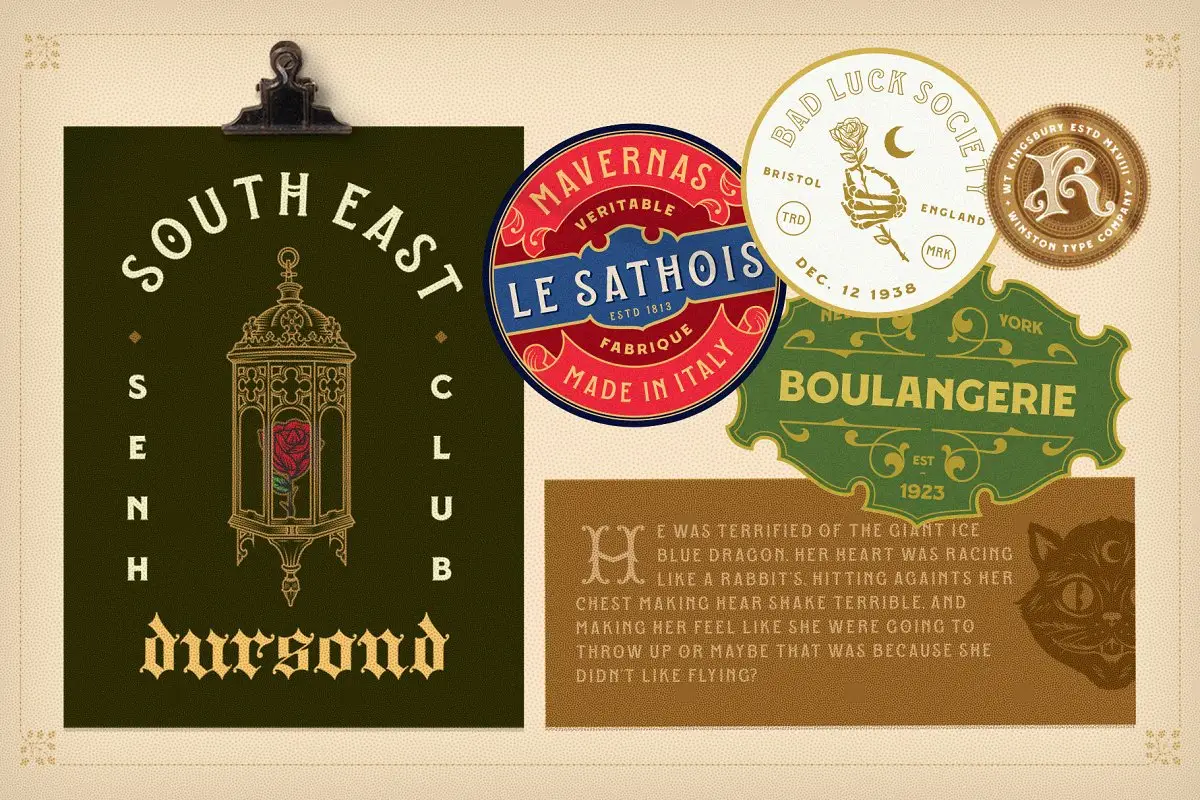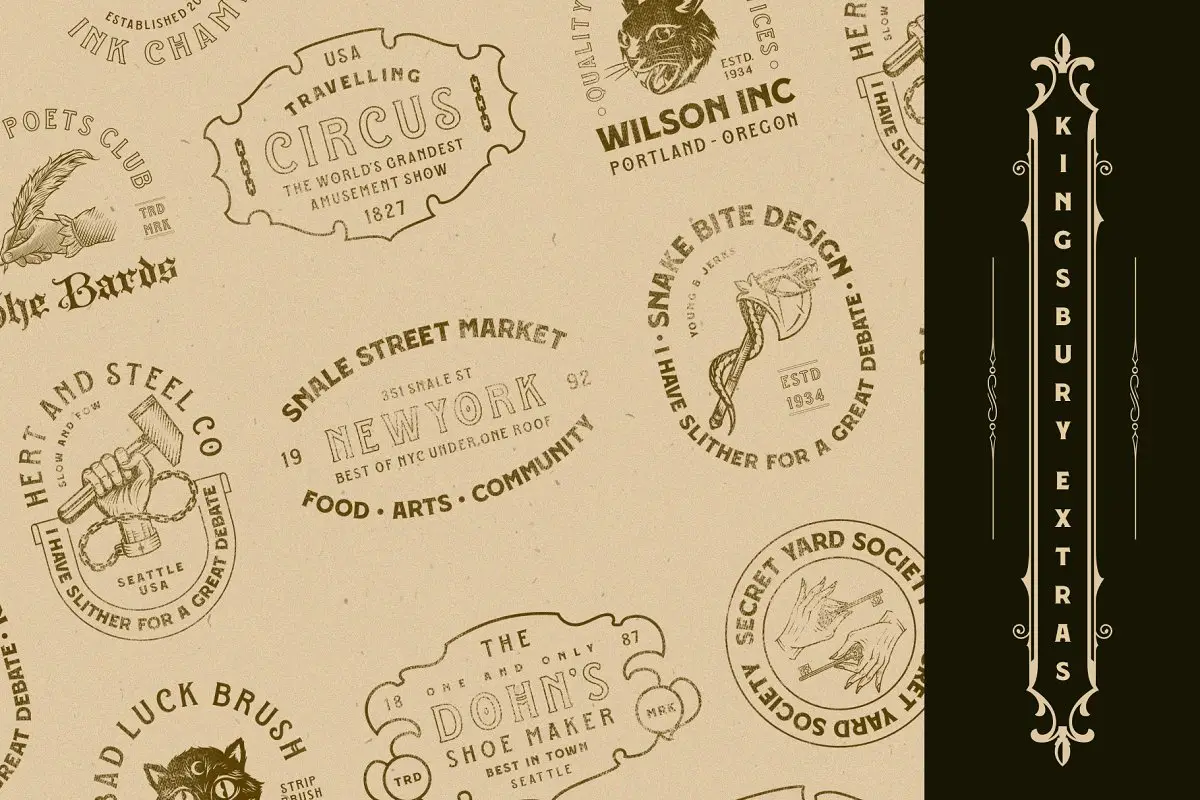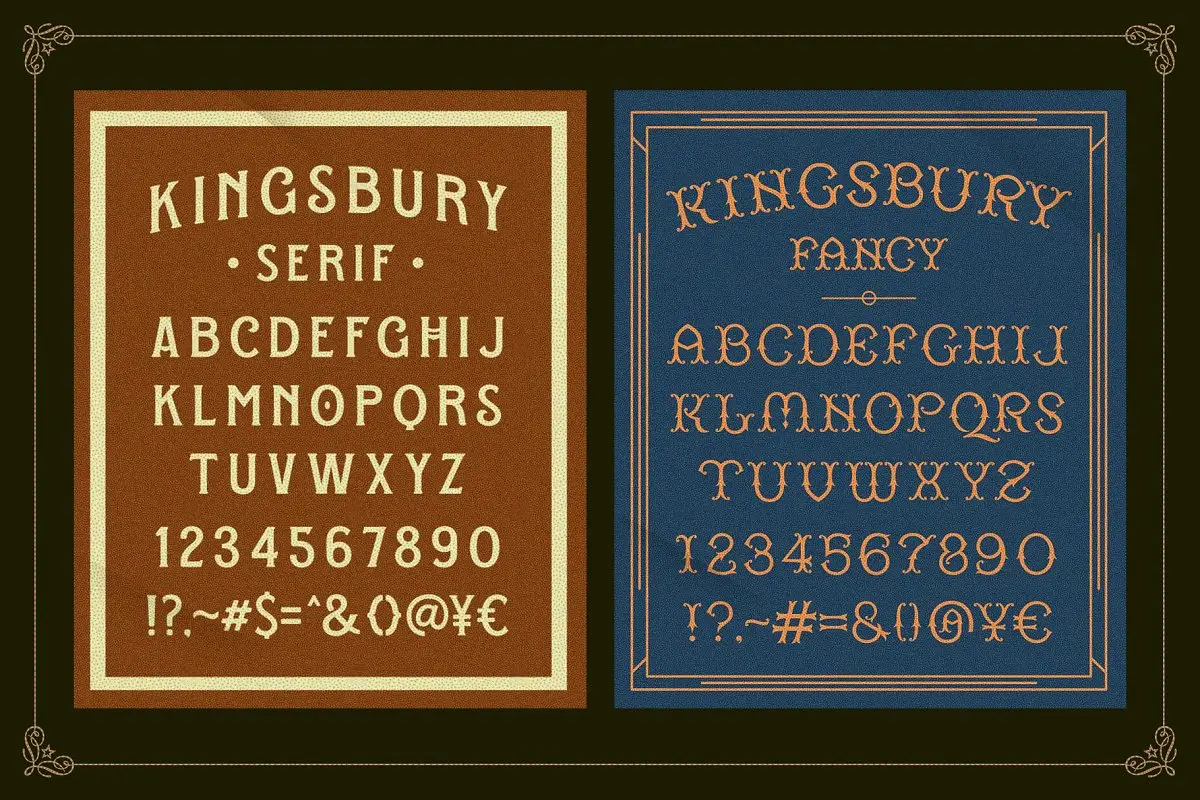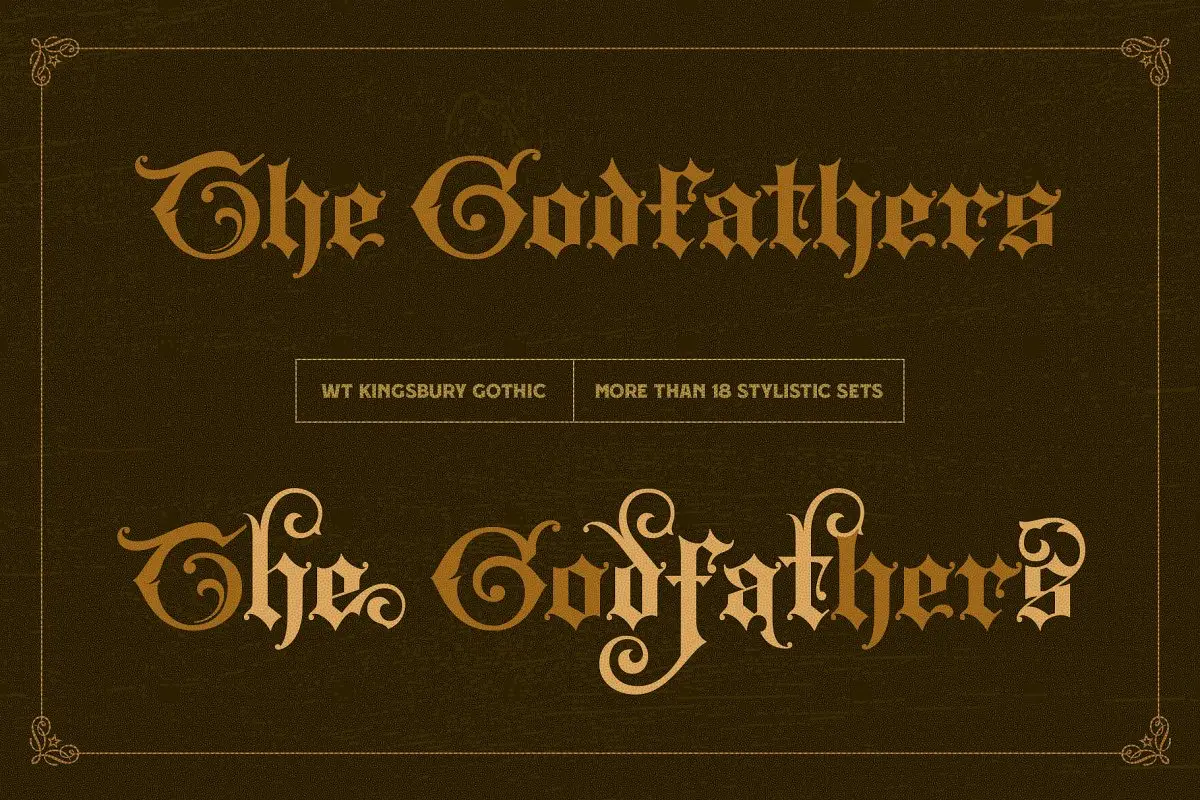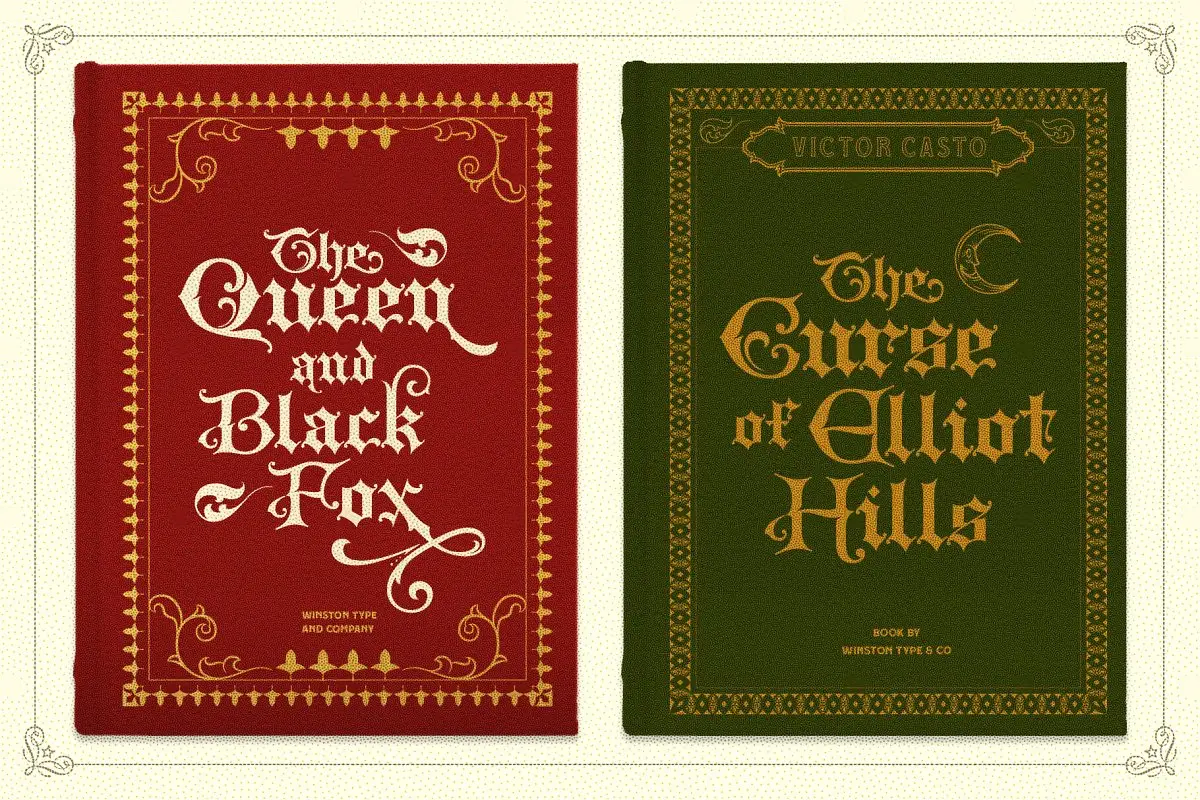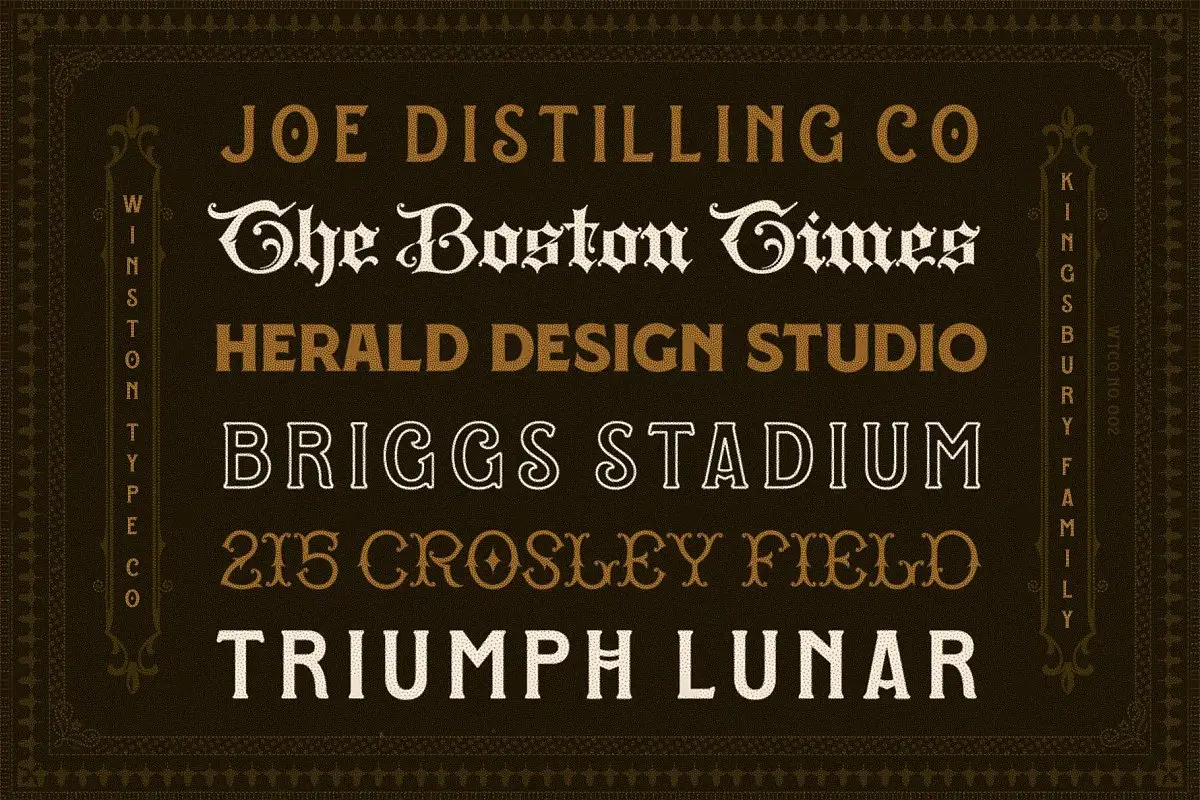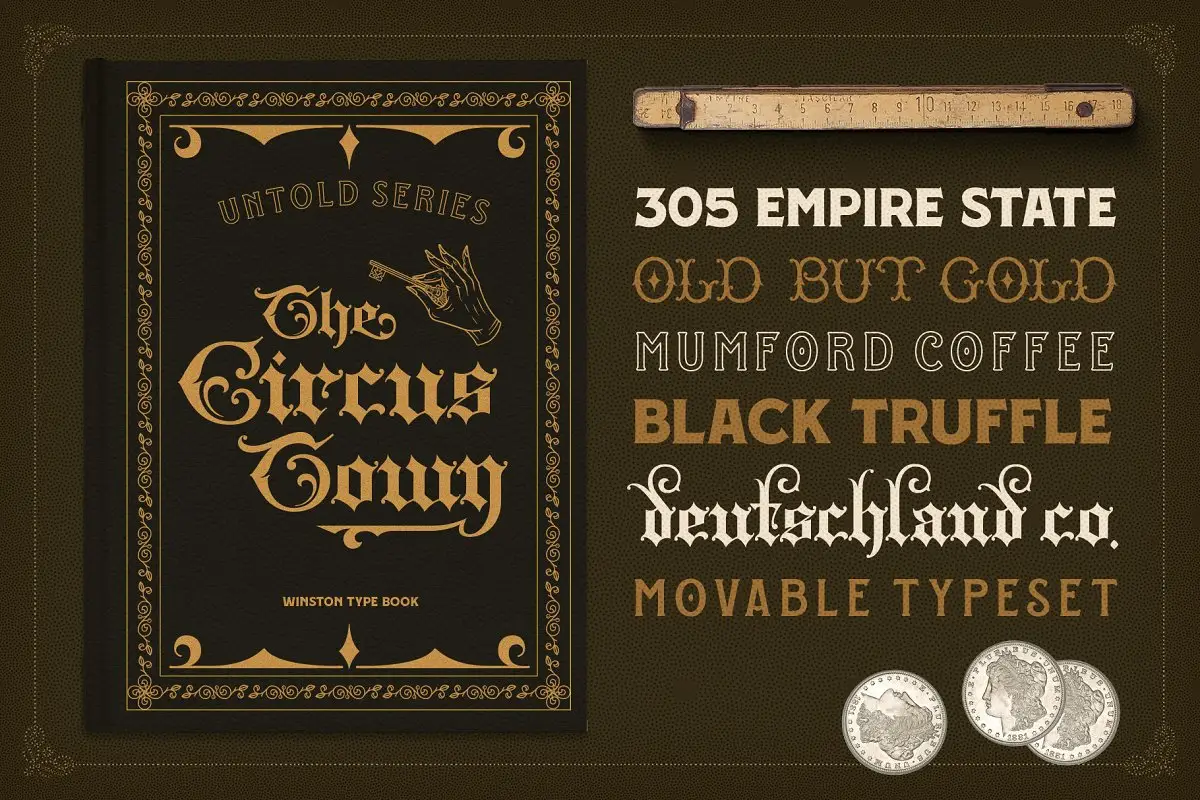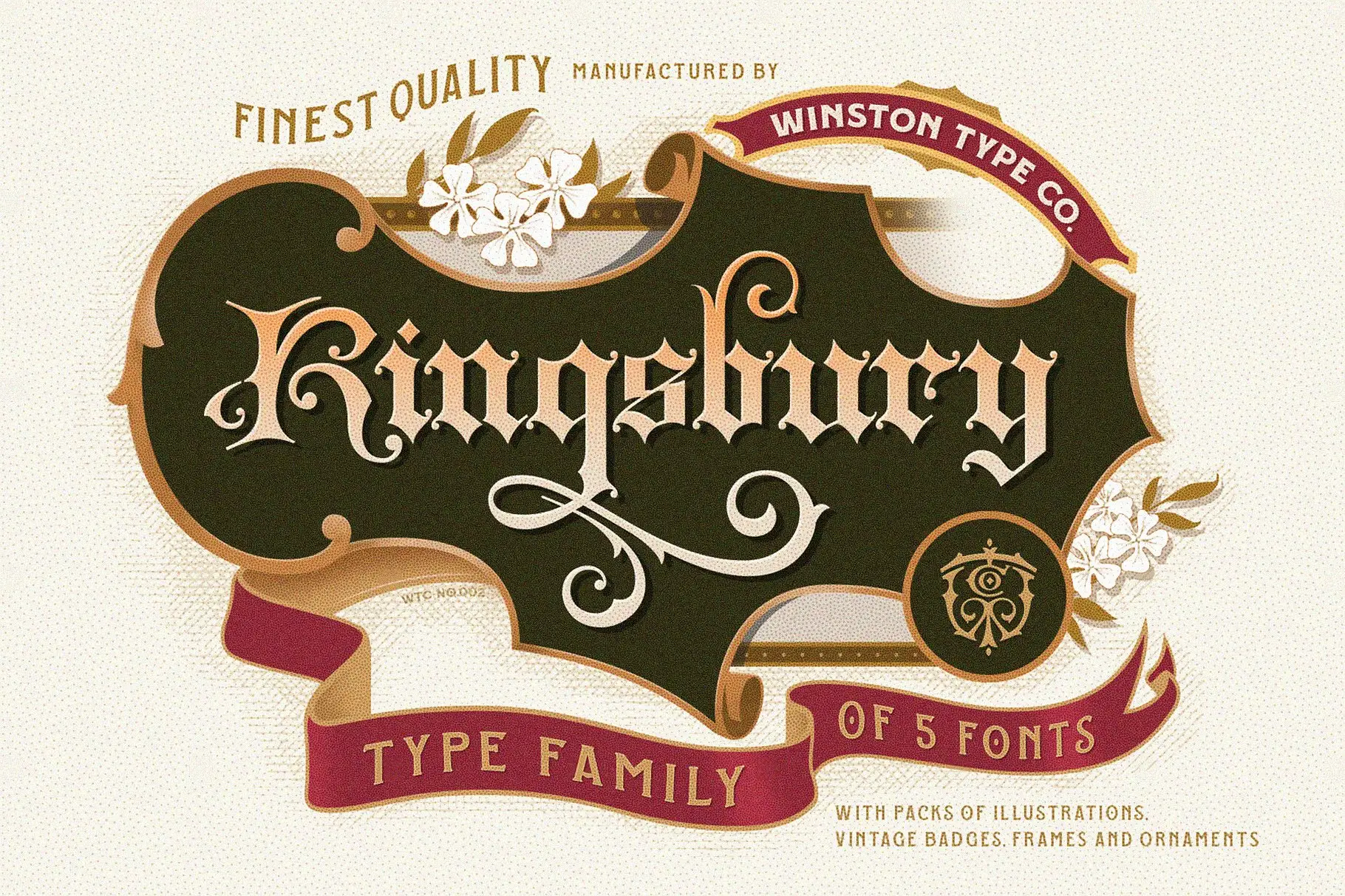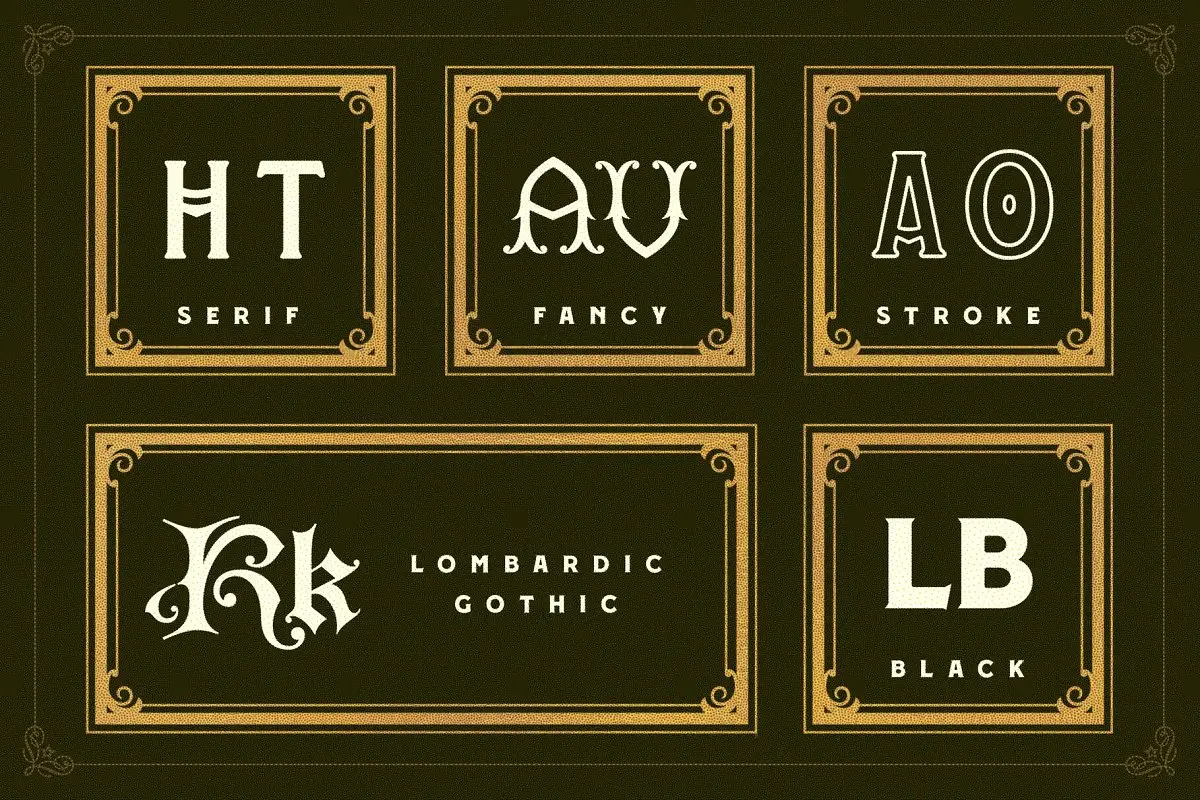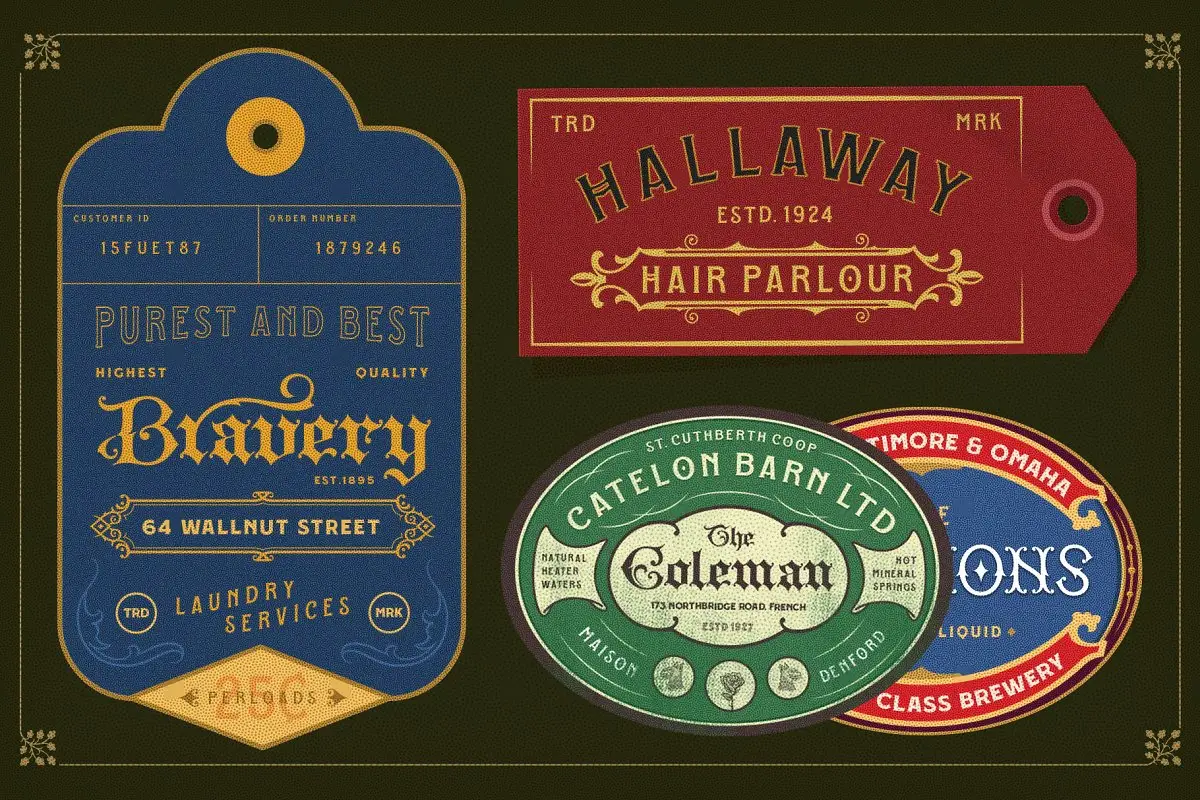
Wt Kingsbury Font Bundle
The Wt Kingsbury Font Bundle offers a sophisticated collection of typefaces designed for a variety of creative applications. This bundle includes multiple font styles and weights, ensuring versatility for both digital and print projects.
• Ideal for branding projects, logos, and marketing materials.
• Perfect for web design, ensuring readability and aesthetic appeal.
• Great for print applications such as business cards, brochures, and flyers.